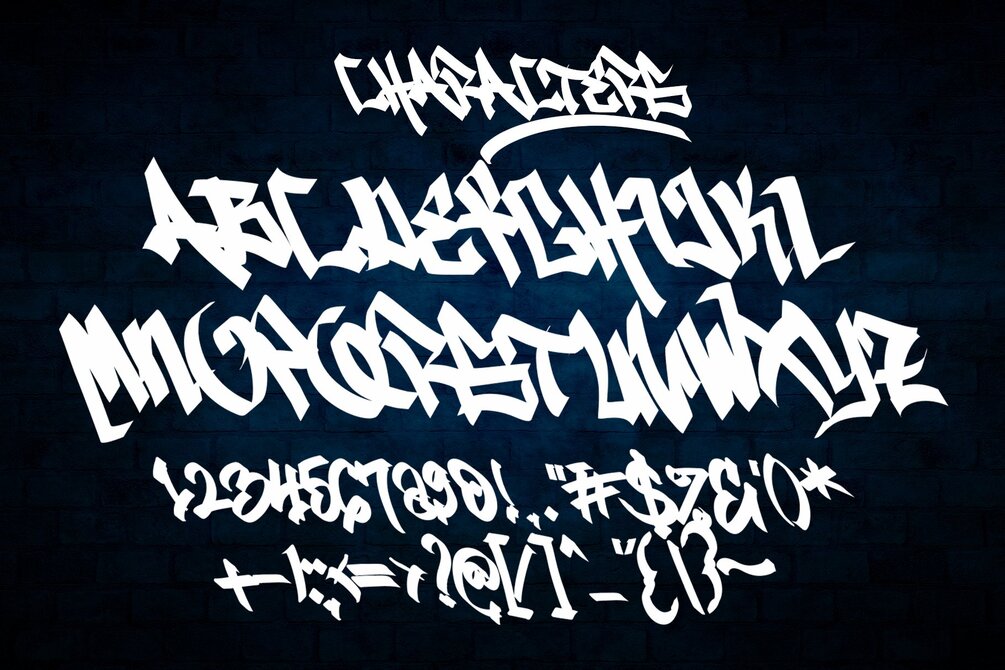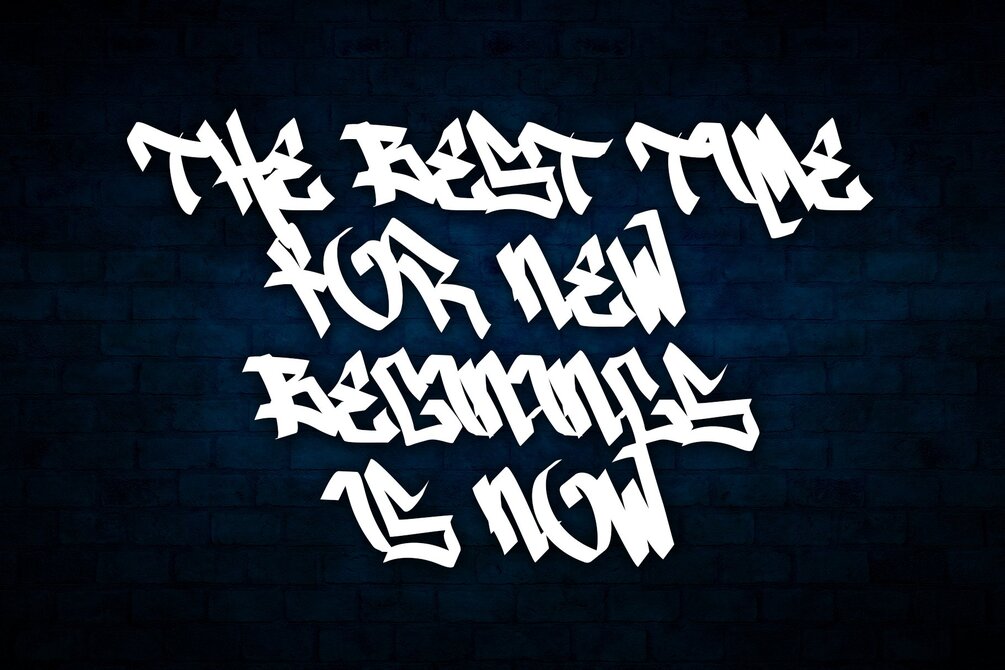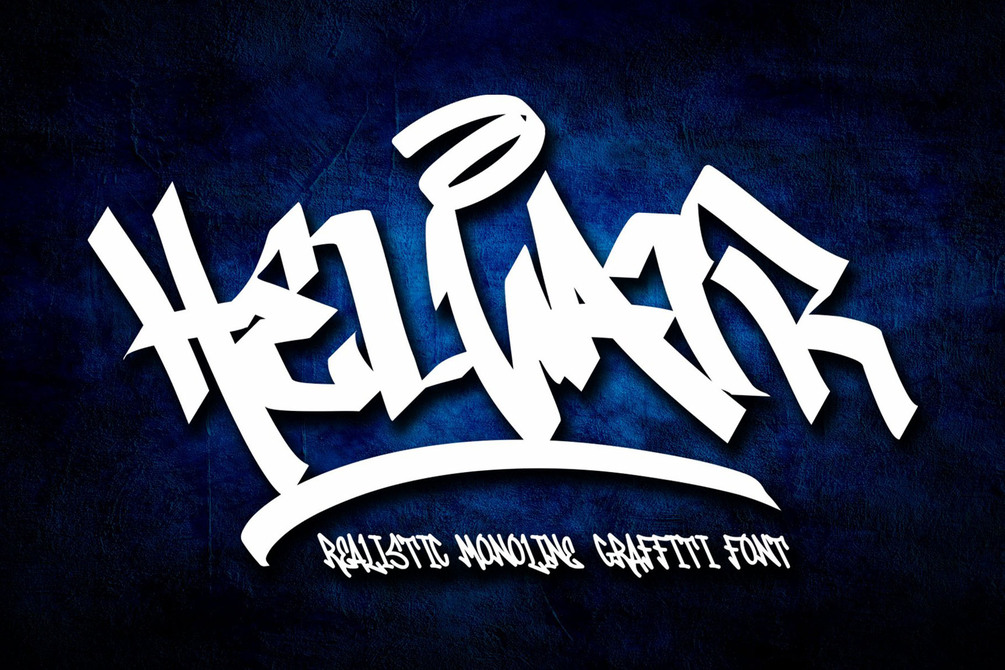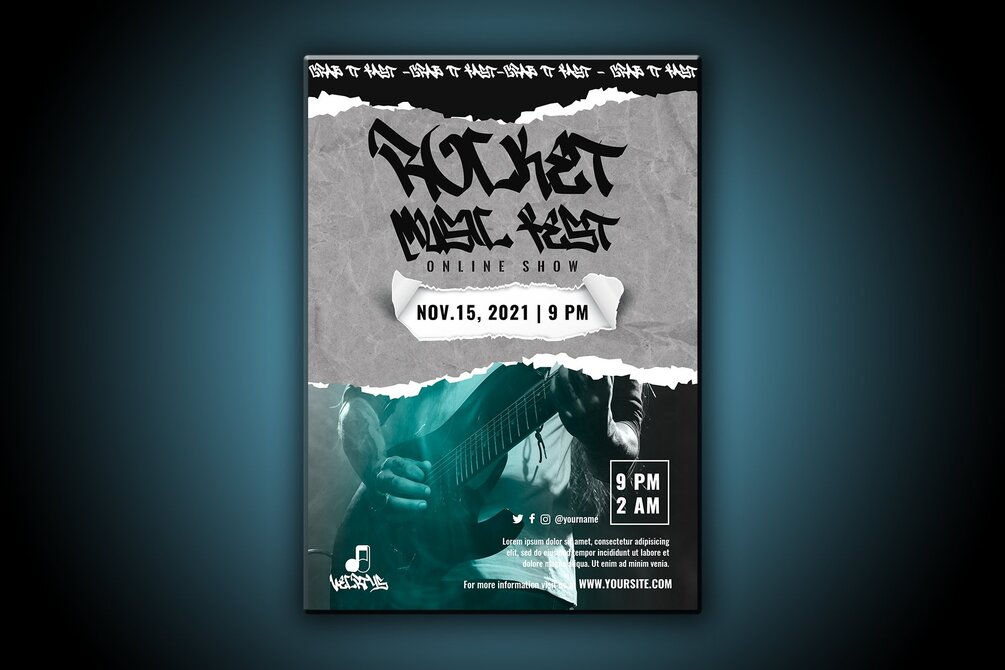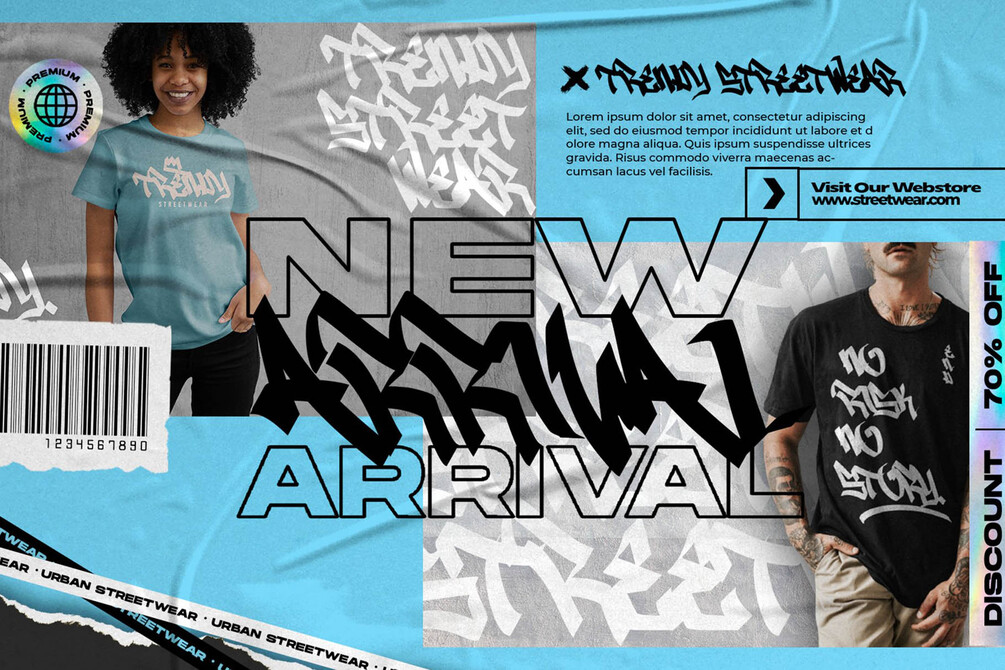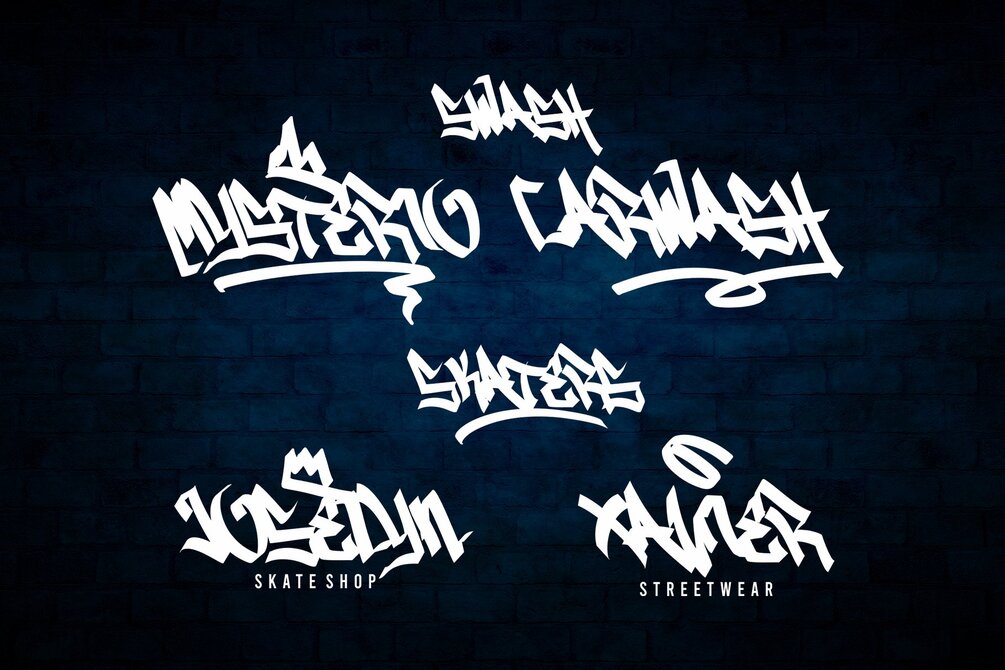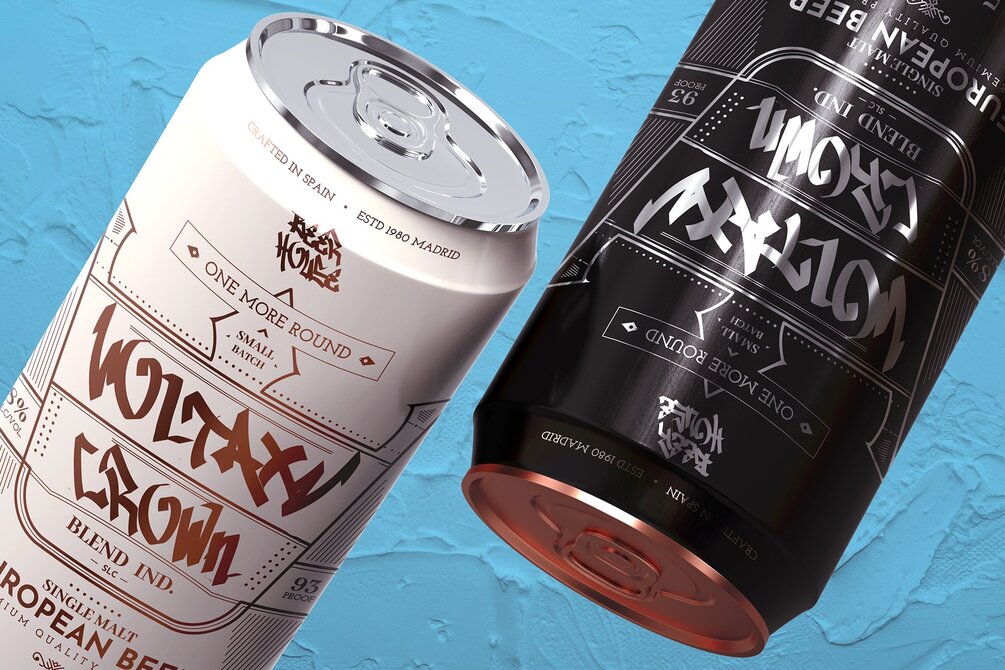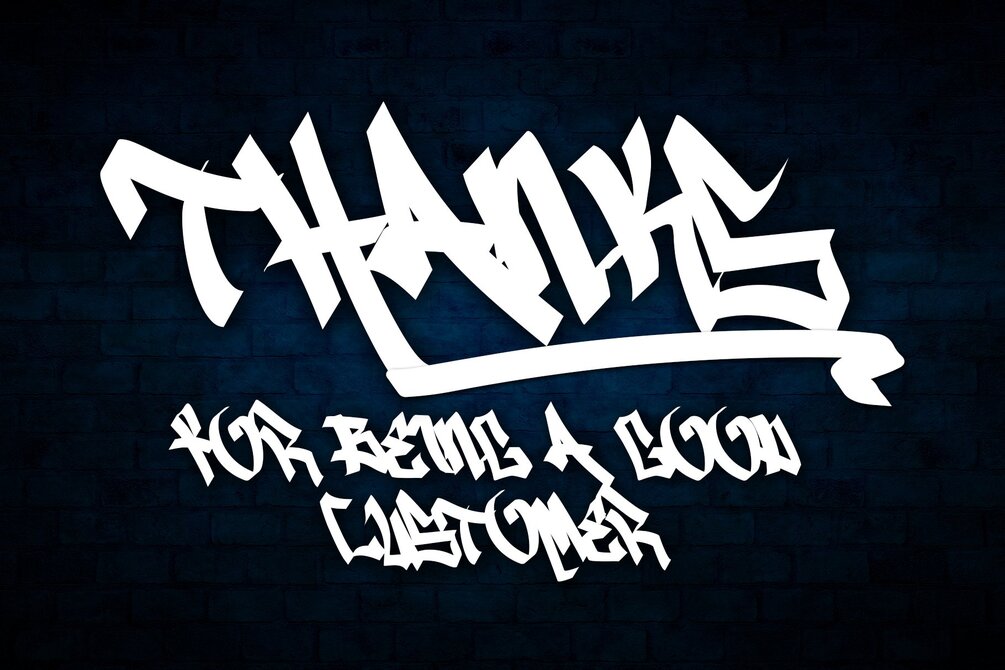
Helvair | Realistic Monoline Graffiti Font | free font
Helvair is a Handwritten font with a Realistic monoline graffiti style, with awesome swash perfect for your awesome urban designs. It will elevate a wide range of design projects to the highest levels, be it branding, headings, designs, invitations, signatures, logos, labels, and much more!
Features:
• Uppercase
• Punctuation
• Swash